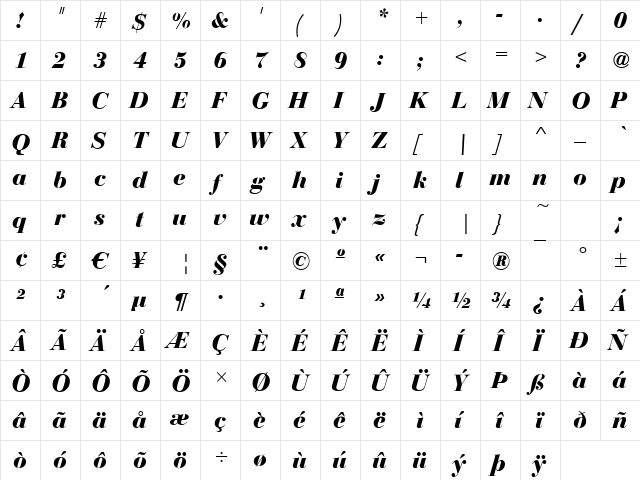
Design Context for Bodoni-Display Typeface
Bodoni-Display brings ornamental detail and strong personality to headlines and identities, where visual impact matters more than quiet functionality. The slanted form adds forward momentum and visual energy. The heavy weight commands attention and anchors typographic hierarchies.
Font Pairing: Pair with a clean neutral sans-serif for body copy to let Bodoni-Display's character lead without overwhelming the composition.
Pro Tip: Treat Bodoni-Display as the centrepiece of your typographic hierarchy. One strong heading set in a decorative face can carry an entire layout.